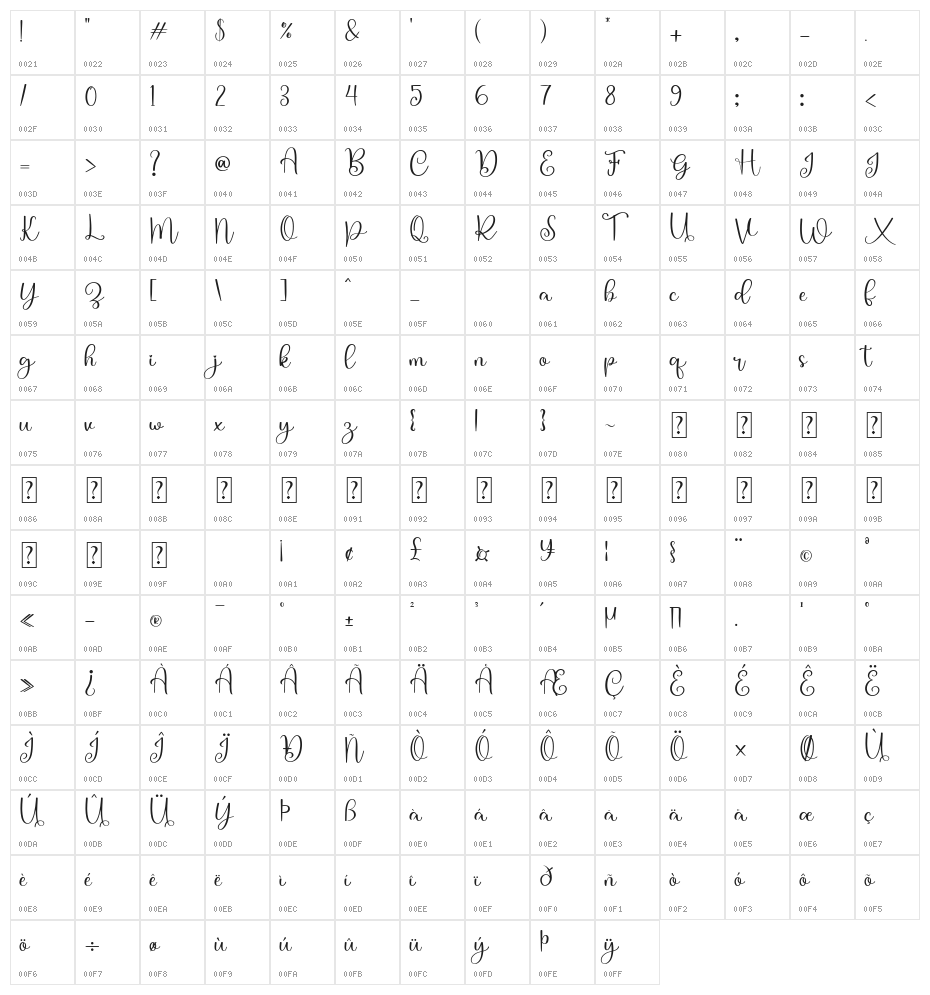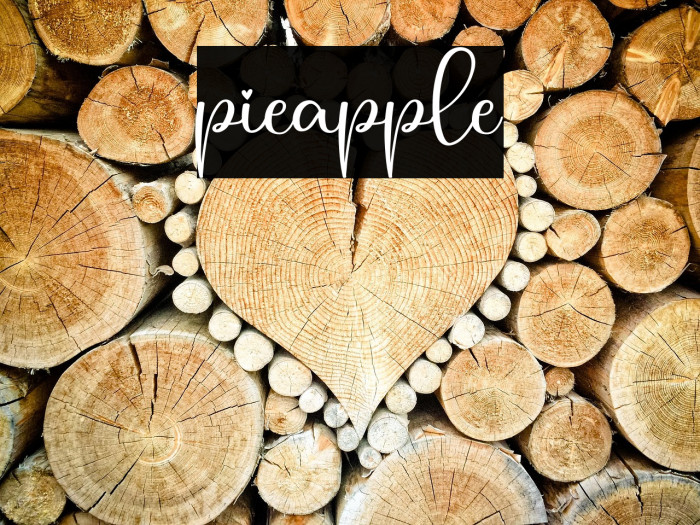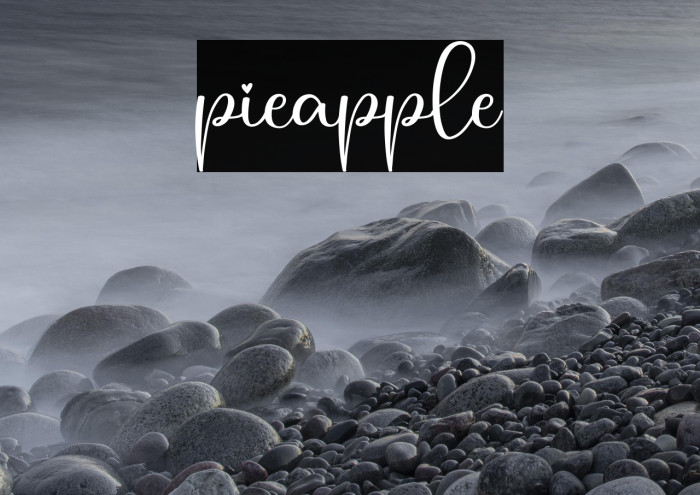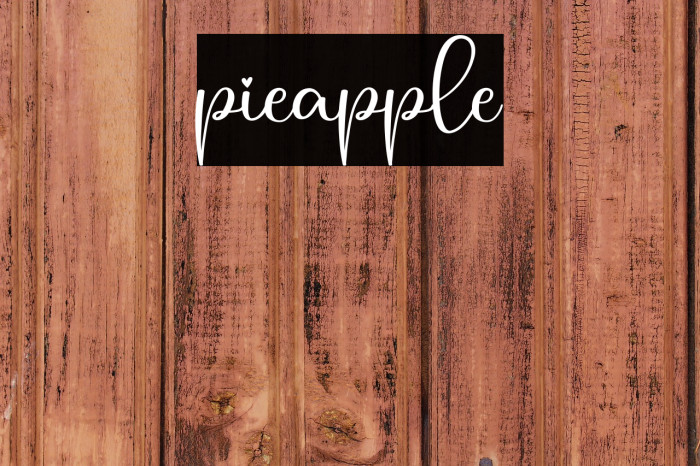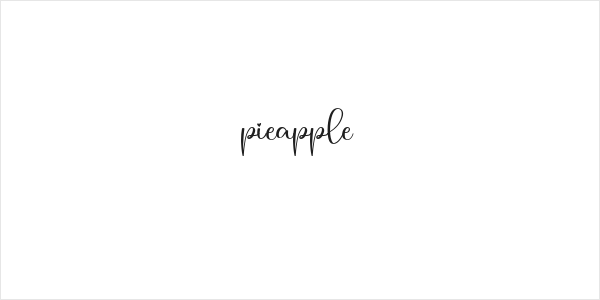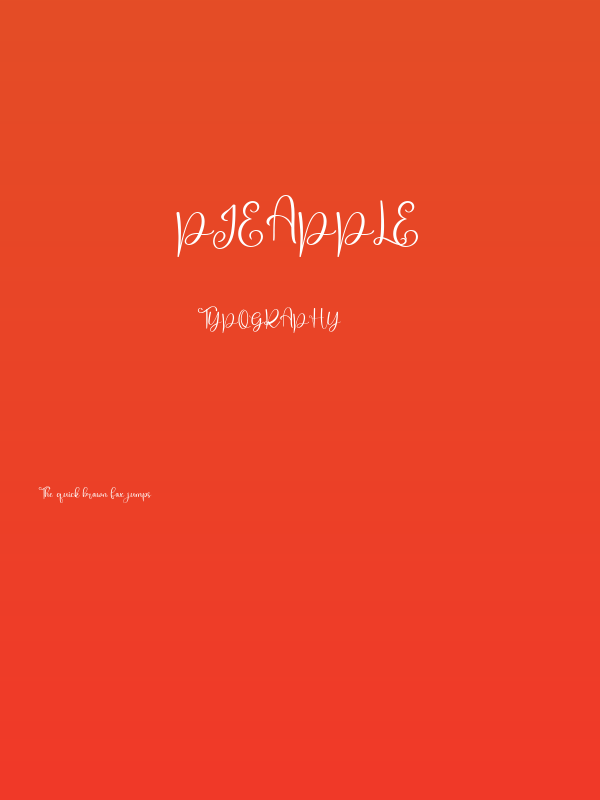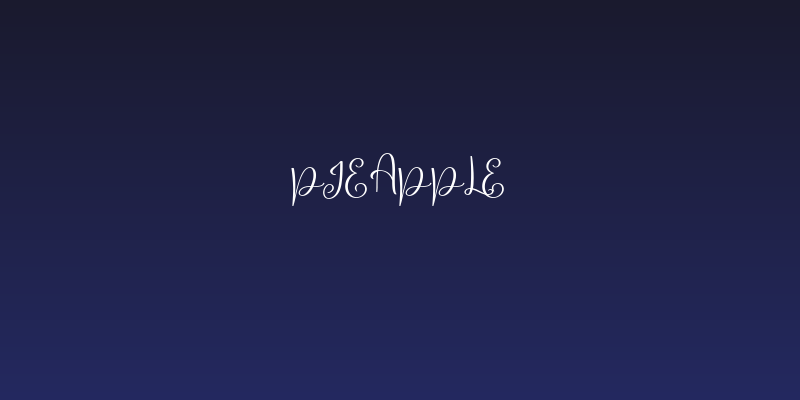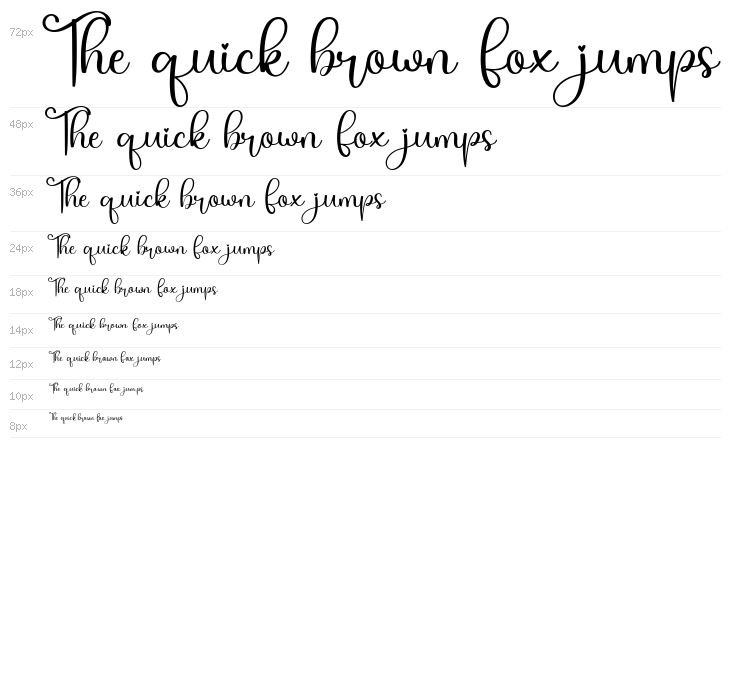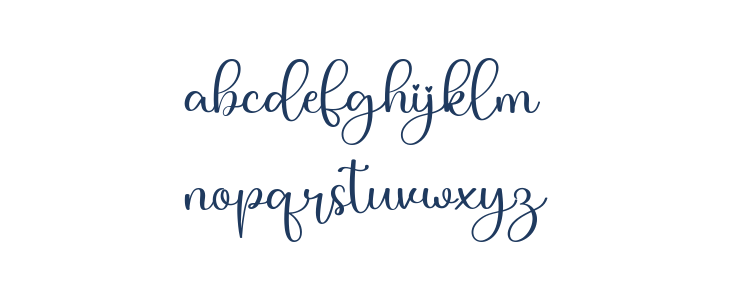
pieapple Font
pieapple Description
This font features a playful and whimsical script style, characterized by its flowing, interconnected letters and elegant curves. The uppercase letters exhibit a unique blend of loops and swirls, giving them a decorative flair. The lowercase letters maintain a consistent style, with smooth transitions and a slightly informal touch. The numerals are bold and clear, maintaining the playful aesthetic of the font. Special characters are creatively designed, adding to the overall charm. This font is perfect for projects that require a touch of elegance and creativity.
| Use Case | Logos, Invitations, Decorative text |
| Proposed Projects | Ideal for wedding invitations, greeting cards, branding projects, and creative posters. |